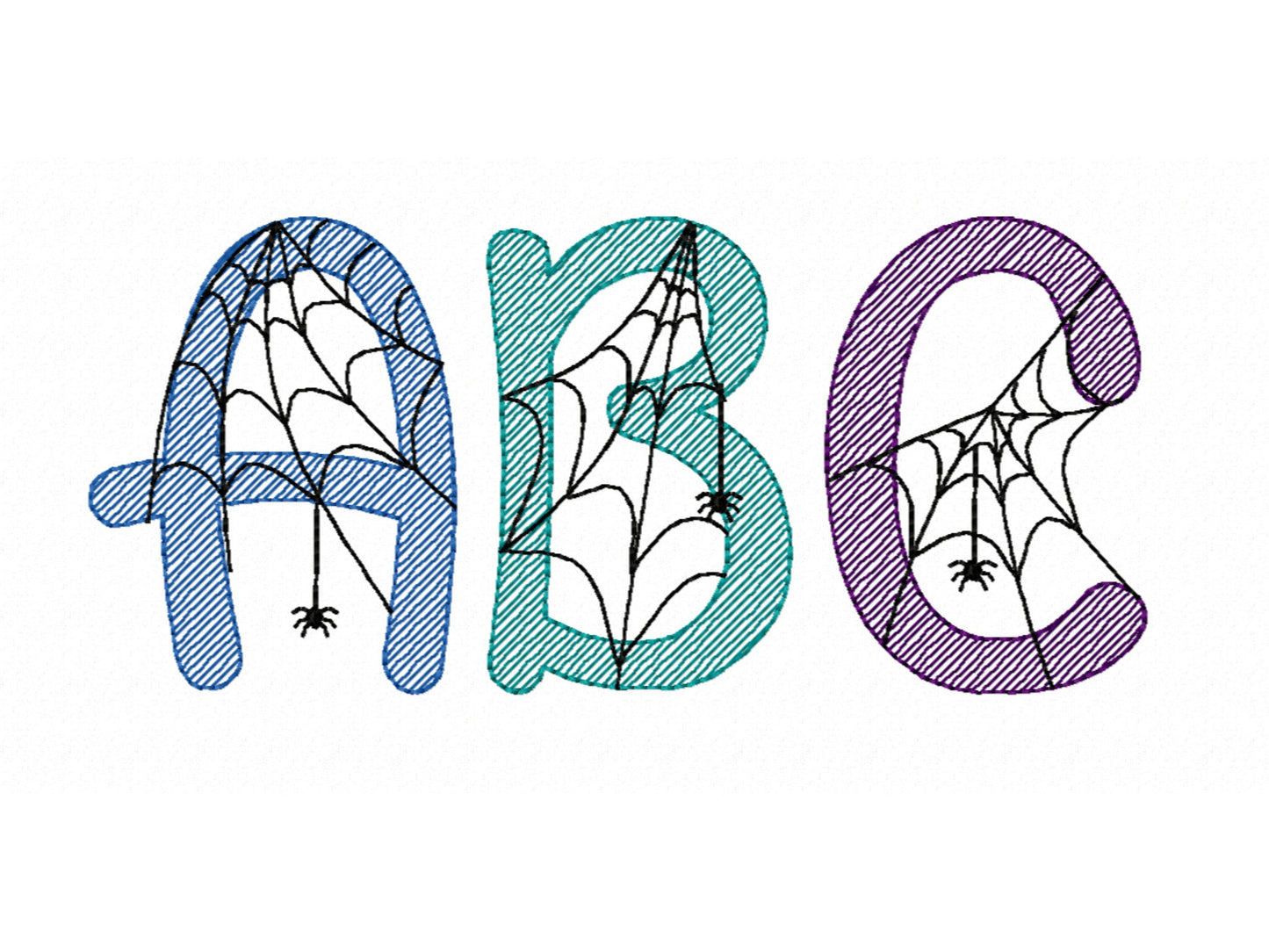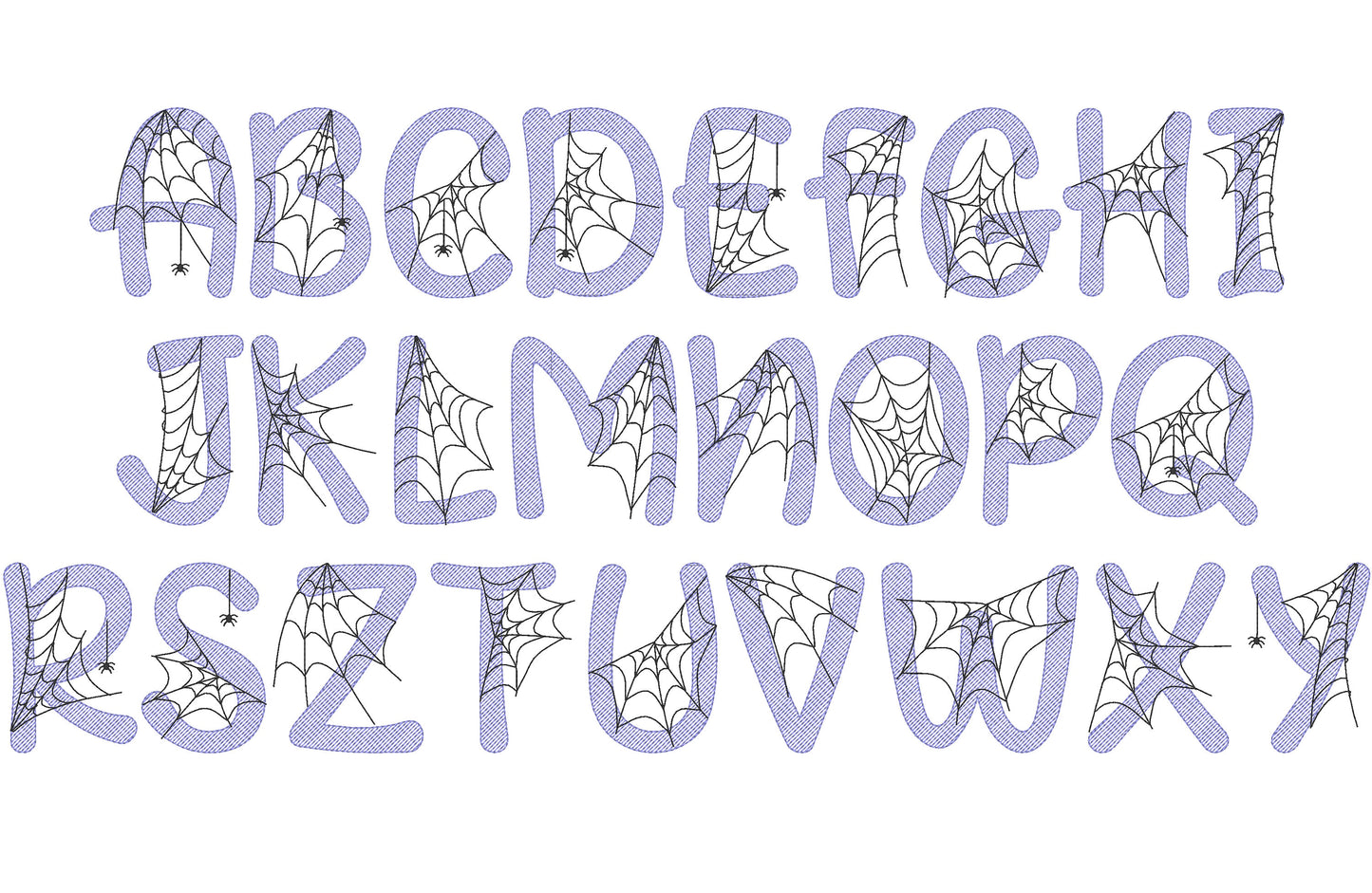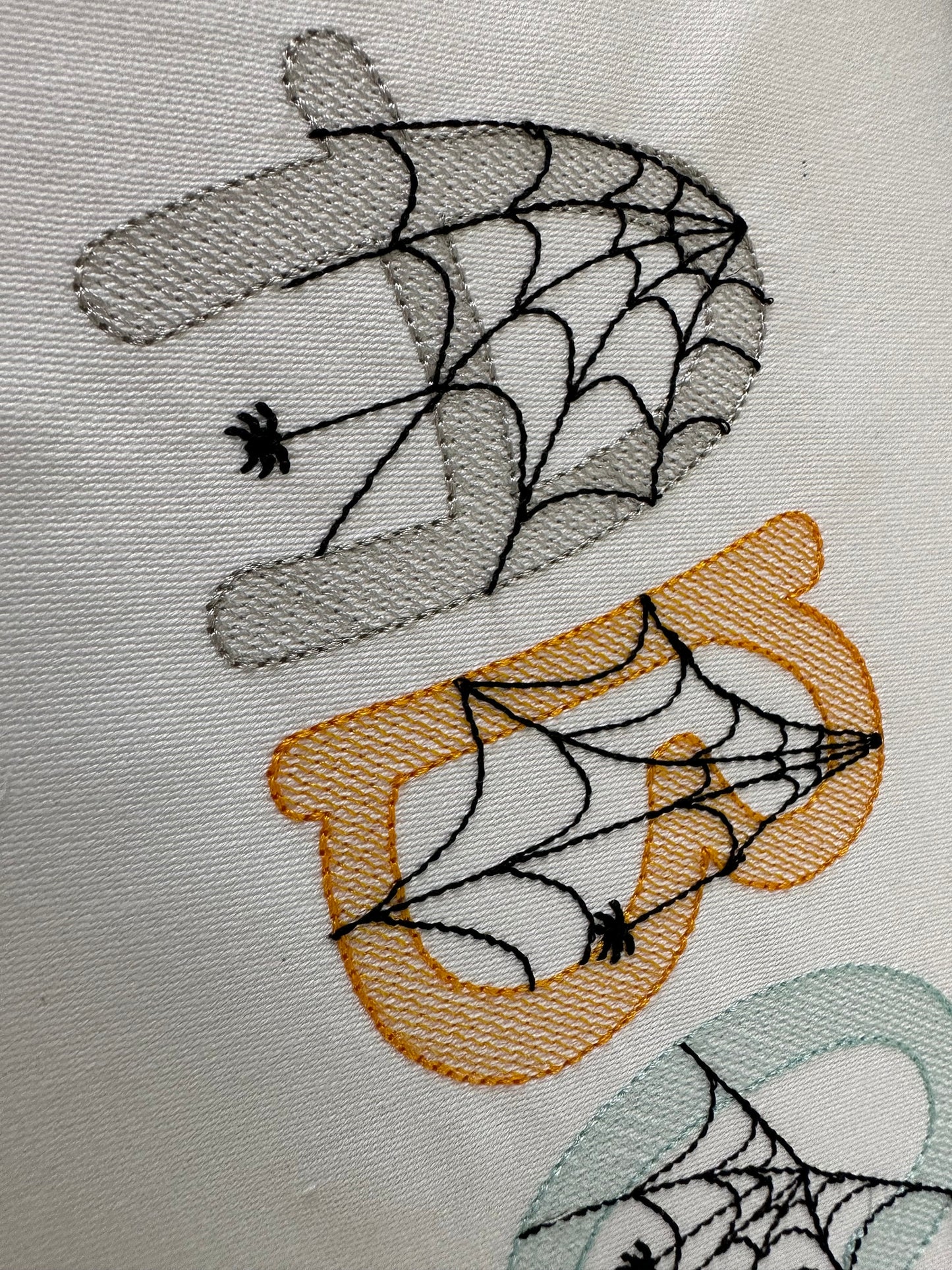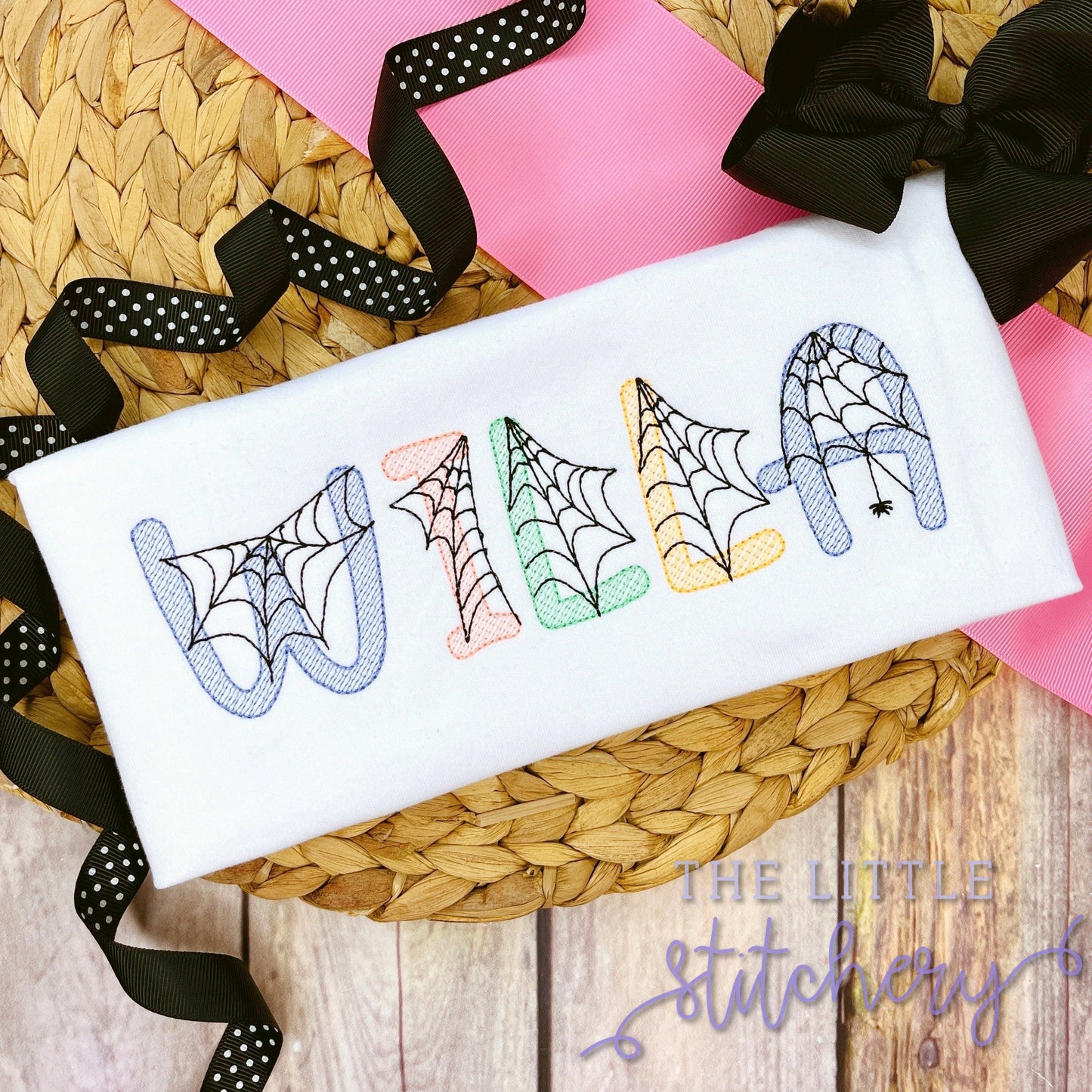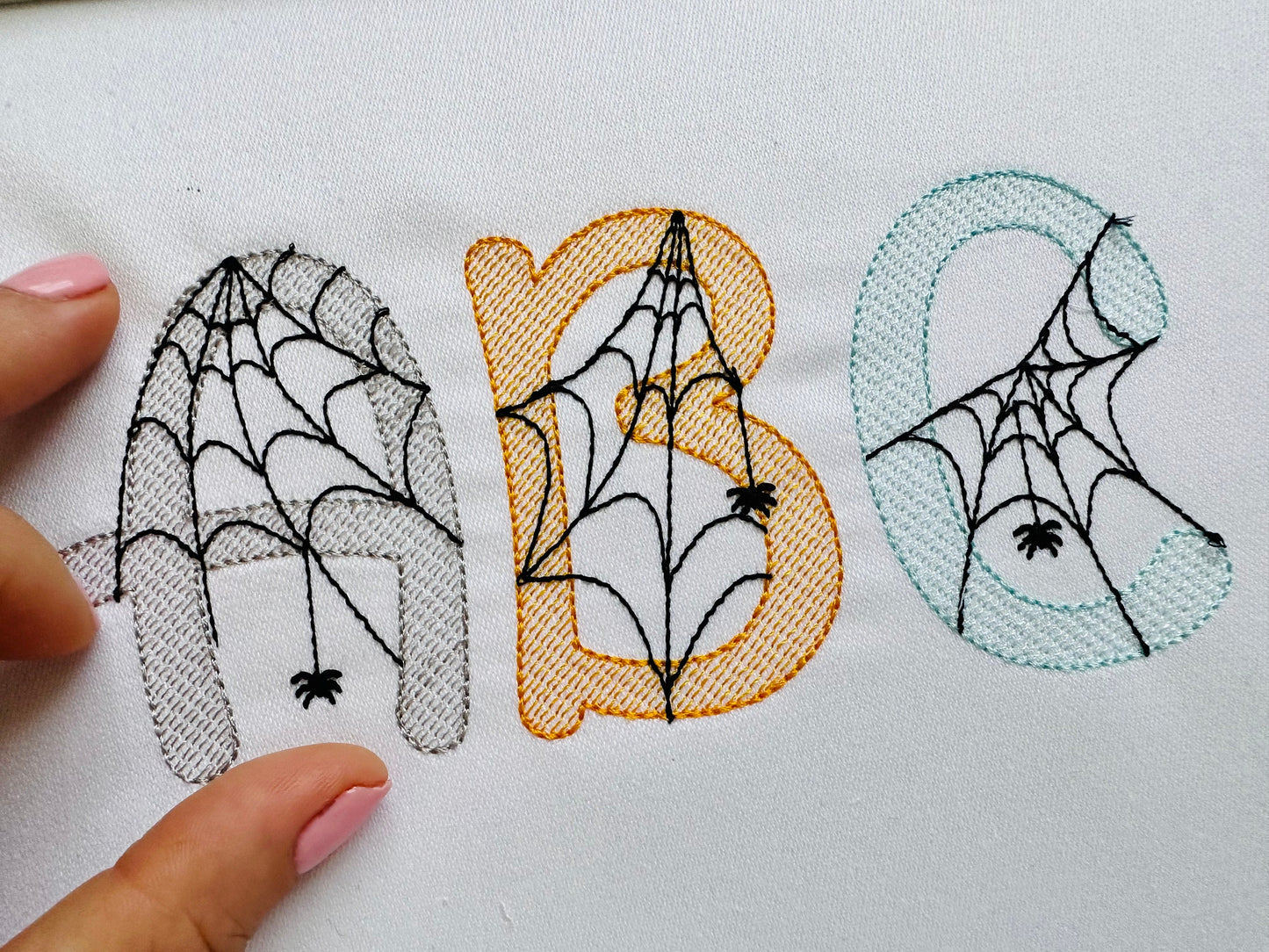
Kids Spiderweb Font
Included: Uppercase A-Z · 2 styles
A spooky spider web font in light stitch. Fun for kids' Halloween shirts, trick-or-treat bags, pillows and decor.
Uppercase letters A to Z in ten sizes from 1.5 to 5.1 inches. The spider web is part of each letter and the fabric shows through; an add-on version puts a spider on every letter.
• Spider web Halloween font
• Uppercase A to Z
• 10 sizes, 1.5 to 5.1 in